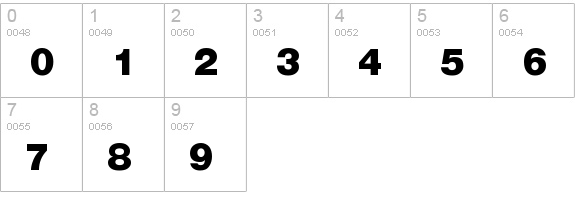
QTHelvet-Black Regular is a maximum-weight, dramatic variant in the QTHelvet typeface family \xE2\x80\x94 well suited to maximum-impact headlines, posters, and packaging.
QTHelvet-Black Regular font is a visually stunning typeface that exudes elegance and sophistication. With its clean lines and bold appearance, this font commands attention and makes a powerful statement in any design project. Designed with meticulous attention to detail, QTHelvet-Black Regular font offers a perfect balance between simplicity and uniqueness. It effortlessly combines classic elements with a modern twist, making it suitable for a wide range of applications such as branding, advertising, packaging, and more. One of the most notable features of QTHelvet-Black Regular font is its versatility. It can be used effectively in both headlines and body text, providing legibility and readability in any size. The font's well-defined letterforms ensure clarity, even at smaller sizes, making it an excellent choice for various print and digital media. What makes QTHelvet-Black Regular font even more appealing is the fact that it is freely available to download at FontsMarket.com. This means that designers and creatives can access this remarkable font without any hassle or cost, making it an ideal choice for both personal and commercial projects. Whether you're designing a logo for a high-end brand, creating engaging social media graphics, or designing a sleek website, QTHelvet-Black Regular font will elevate your designs to a whole new level. Its timeless appeal and seamless integration into any design concept make it a must-have font for any discerning designer. Experience the power and beauty of QTHelvet-Black Regular font by downloading it for free at FontsMarket.com. Unleash your creativity and effortlessly captivate audiences with this exceptional typeface that embodies style, sophistication, and versatility.